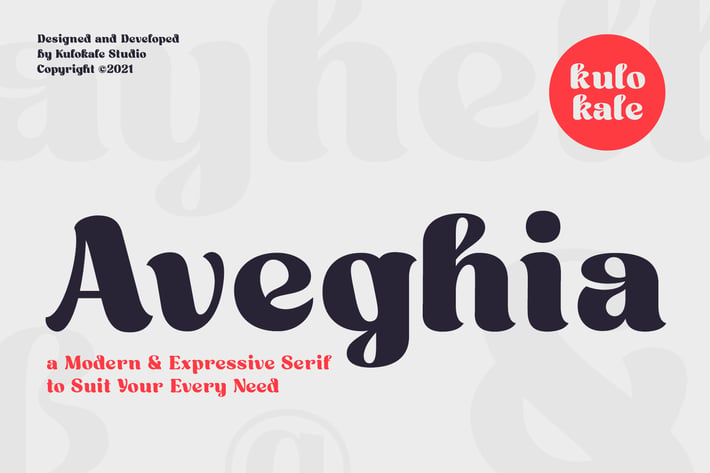
Aveghia Display Serif Font
Kulokale
Aveghia is a modern and expressive serif font.
Aveghia is perfect for many different projects such as logos and branding, invitations, stationery, social media posts, advertisements, printed quotes, product packaging, product designs, labels, photography, watermark, special events and many more.